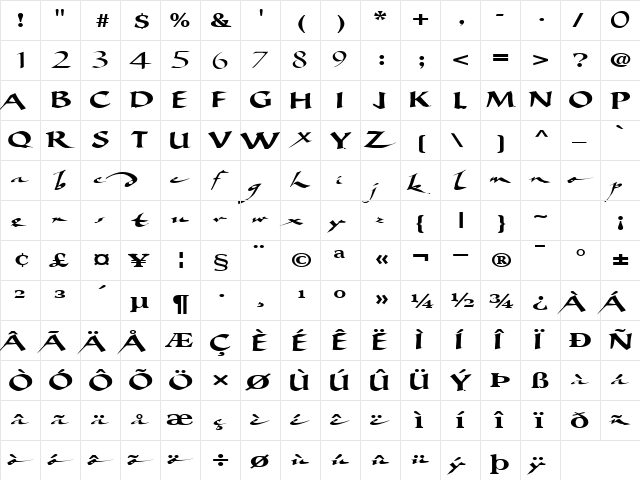
BigBrushFont19 Regular Font Preview
BigBrushFont19 Regular
BigBrushFont19 Regular Font Details
Design Context for BigBrushFont19 Typeface
BigBrushFont19 flows with the natural rhythm of handwritten lettering, making it ideal for designs that call for warmth and personal expression.
Font Pairing: Combine BigBrushFont19 with a simple geometric sans for maximum contrast — the tension between flowing curves and clean structure is a classic typographic pairing.
Pro Tip: Pair BigBrushFont19 with a clean sans-serif for supporting text. The contrast between fluid script and geometric structure creates an elegant typographic hierarchy.